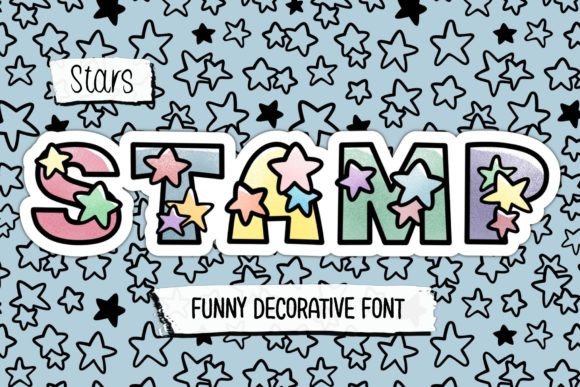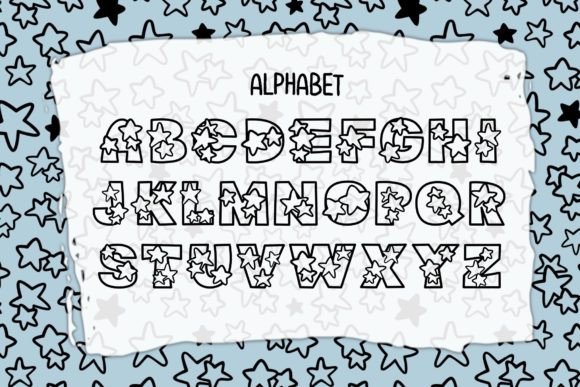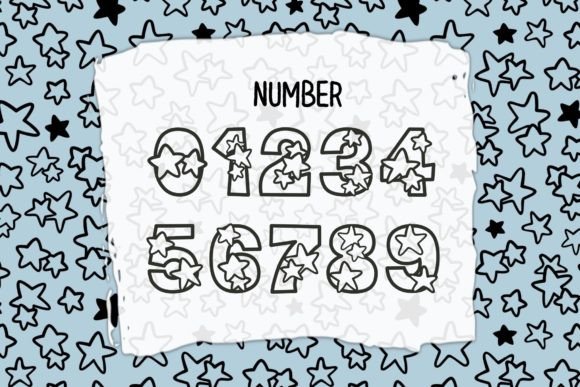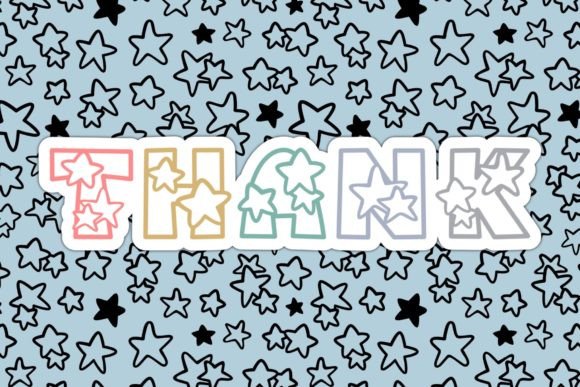
Stars Stamp Font: A Playful & Cute Decorative Font for DIY Crafts
About the Stars Stamp Font
From logos to headlines, the Stars Stamp Font is the perfect choice for making a lasting impression. Stars Stamp is a Decorative font. This font is the perfect fit for all of your logos, branding, social media, crafty DIY projects, and much more!
Stars Stamp Font Usage Examples
Stars Stamp Font Example